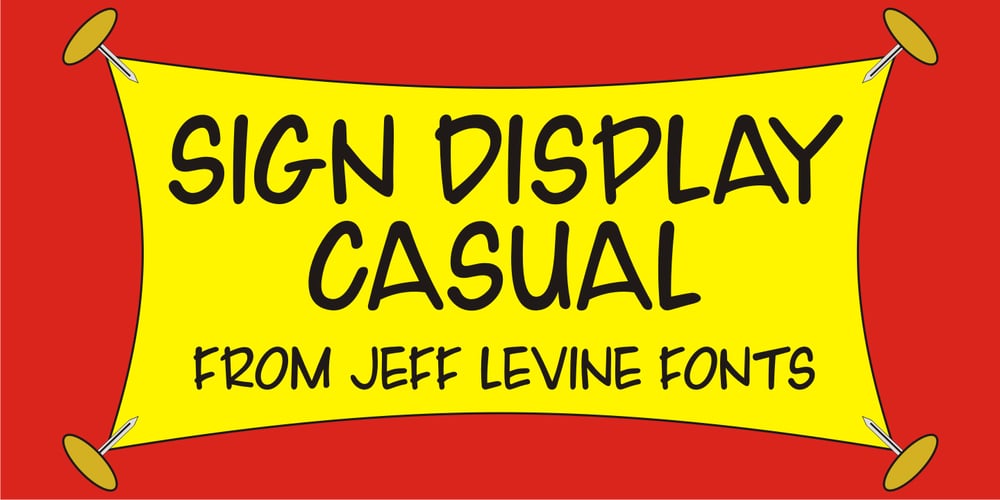
Sign Display Casual JNL Font Family was designed by Jeff Levine and published by Jeff Levine. Sign Display Casual JNL contains 1 styles and family package options. A vintage hand lettered sign for a carnival game was the basis for Sign Display Casual JNL, a classic example of the “one stroke” casual text lettering that sets sign painters apart from sign manufacturers.